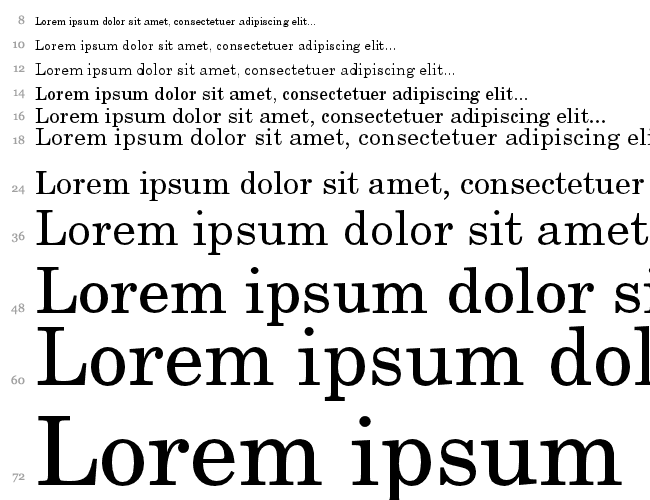
New century schoolbook font for mac. New century schoolbook type family comes in regular and bold weights, including corresponding italics, supports latin, cyrillic and greek. New century schoolbook lt std font subfamily identification: This family contains 6 fonts in styles such as roman, italic, bold, bold italic, fractions bold and fractions.
Another member of the century family which was based on century expanded. The most popular font in this family is new century schoolbook. Apple always neglects to mention this, and the font location:
Century schoolbook was designed by morris benton and published by bitstream. Designed to fulfill the need for a solid, legible face for printing schoolbooks. Otf 1.029;ps 003.001;core 1.0.33;makeotf.lib1.4.1585 postscript font name:
New century schoolbook (c059) is a transitional serif typeface based on the century schoolbook designed by morris fuller benton in 1919 for the american type founders. Download the new century schoolbook lt bold free font. Detailed information on the new century schoolbook font:
New century schoolbook font family. This family contains 4 fonts in styles such as regular, roman, italic and bold. It is wider and heavier than century expanded, there is also less contrast between thick and thin strokes.
First cut by monotype in 1934 and based on versions from atf and. New century schoolbook lt std bold version: New century schoolbook font font family: